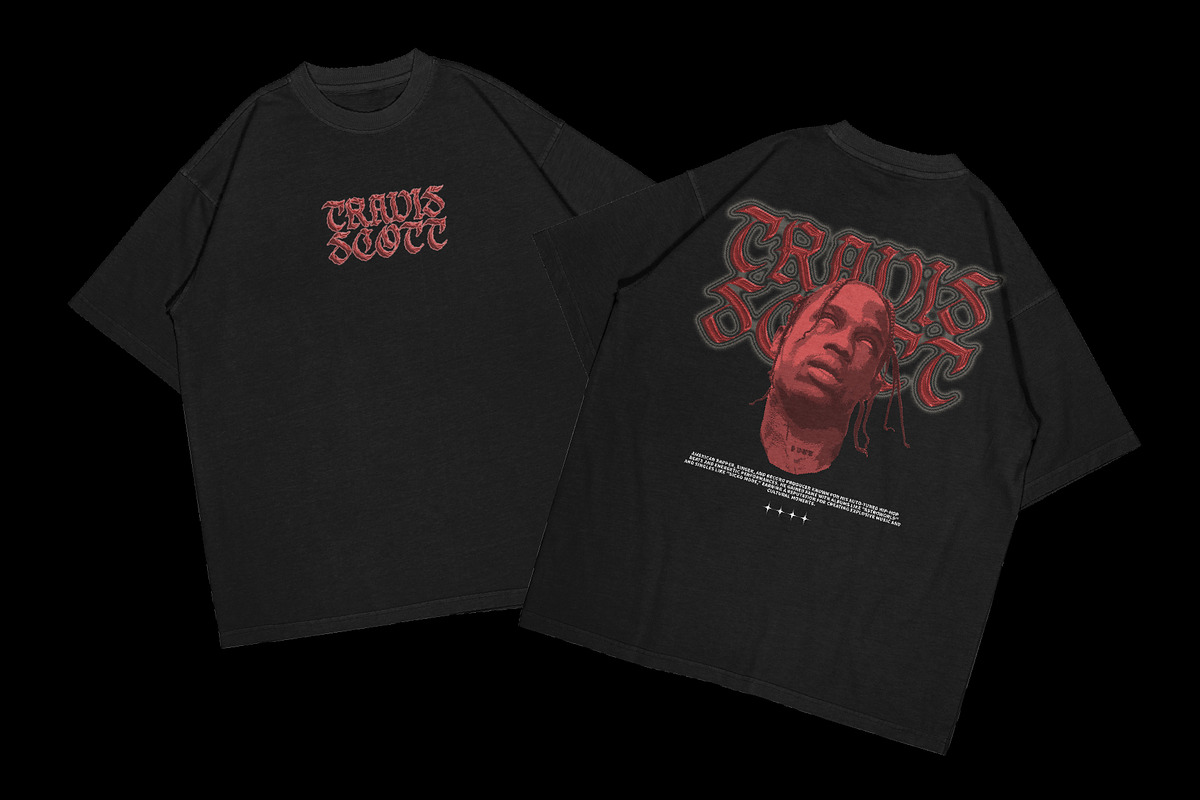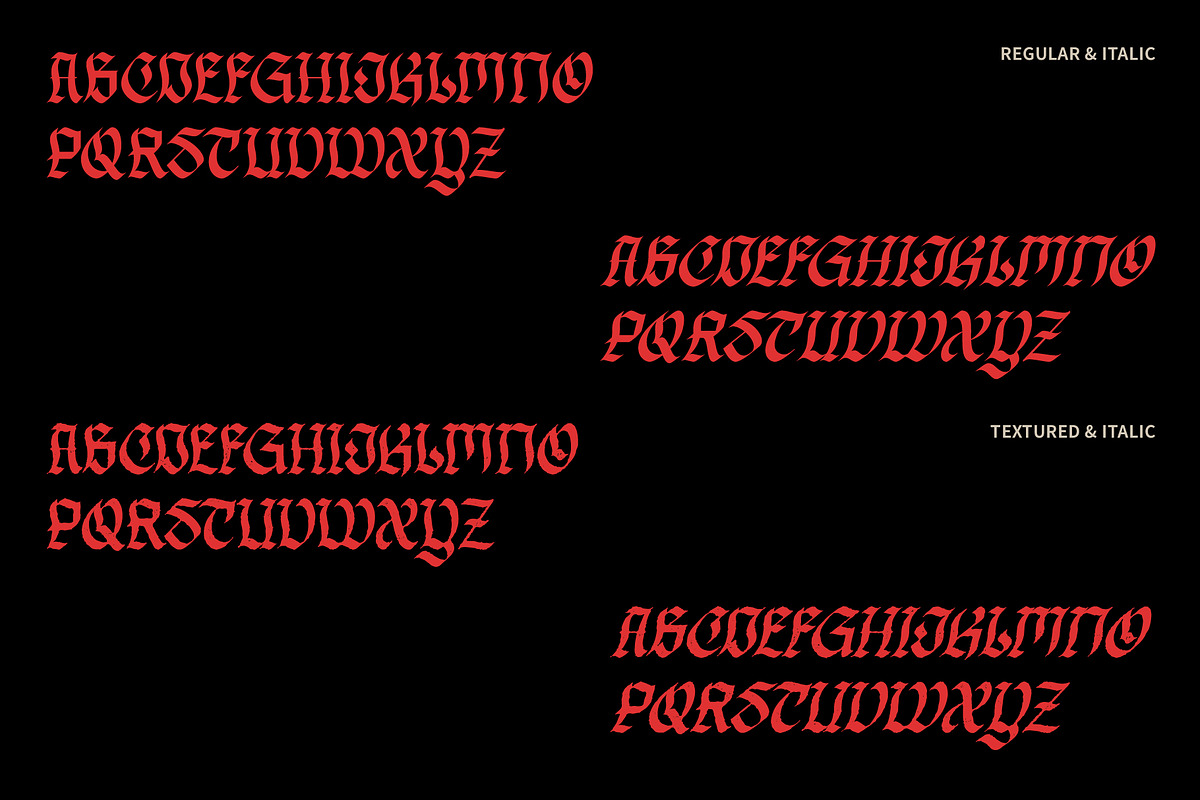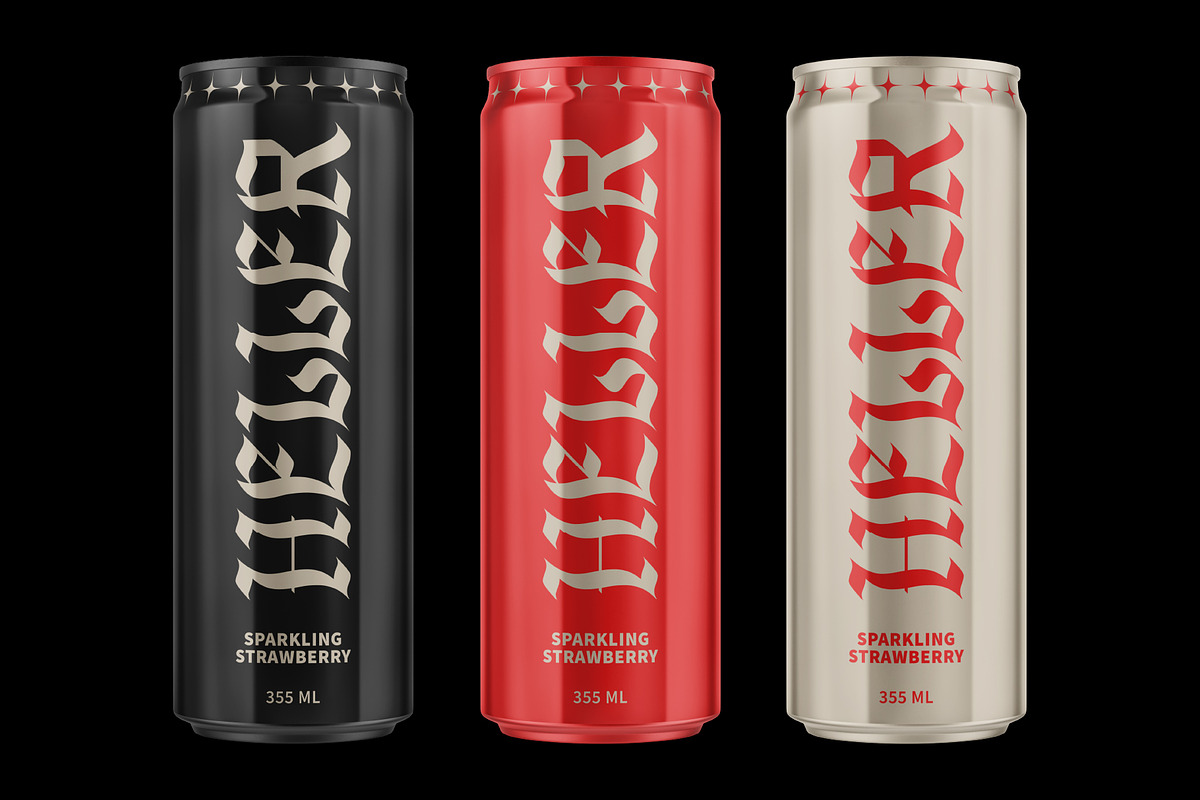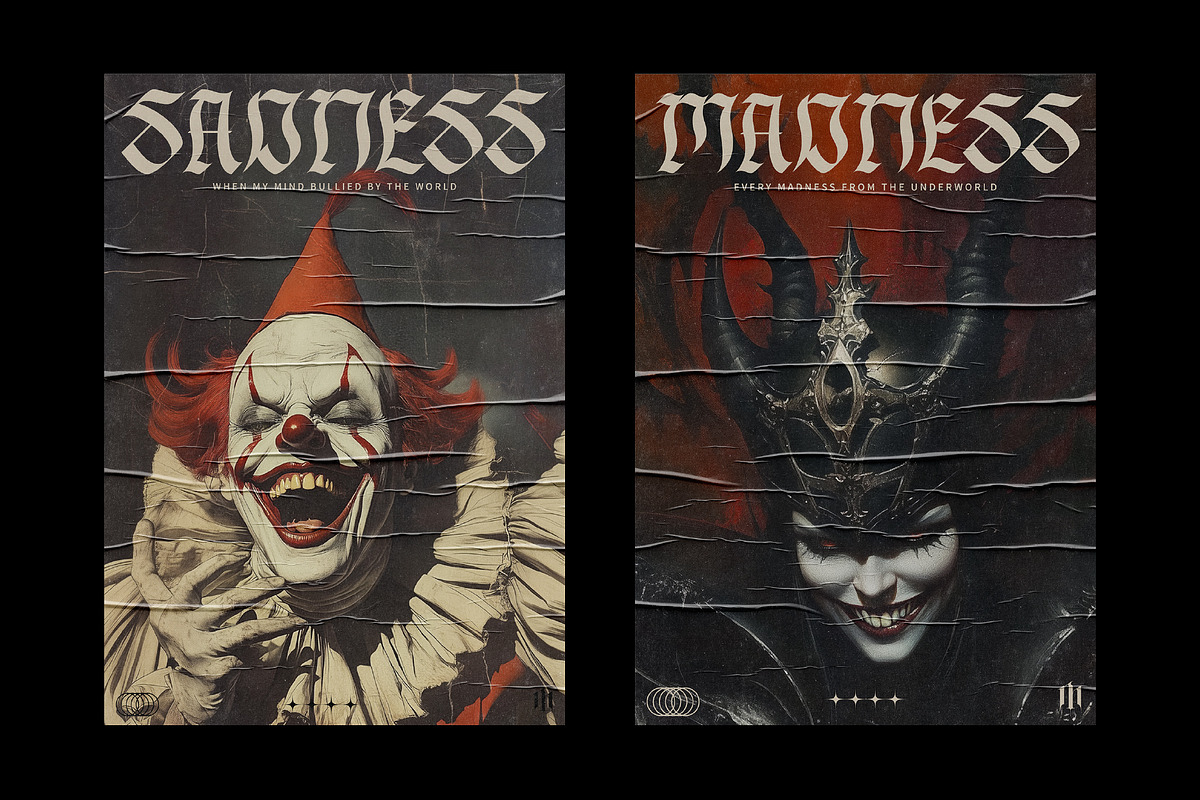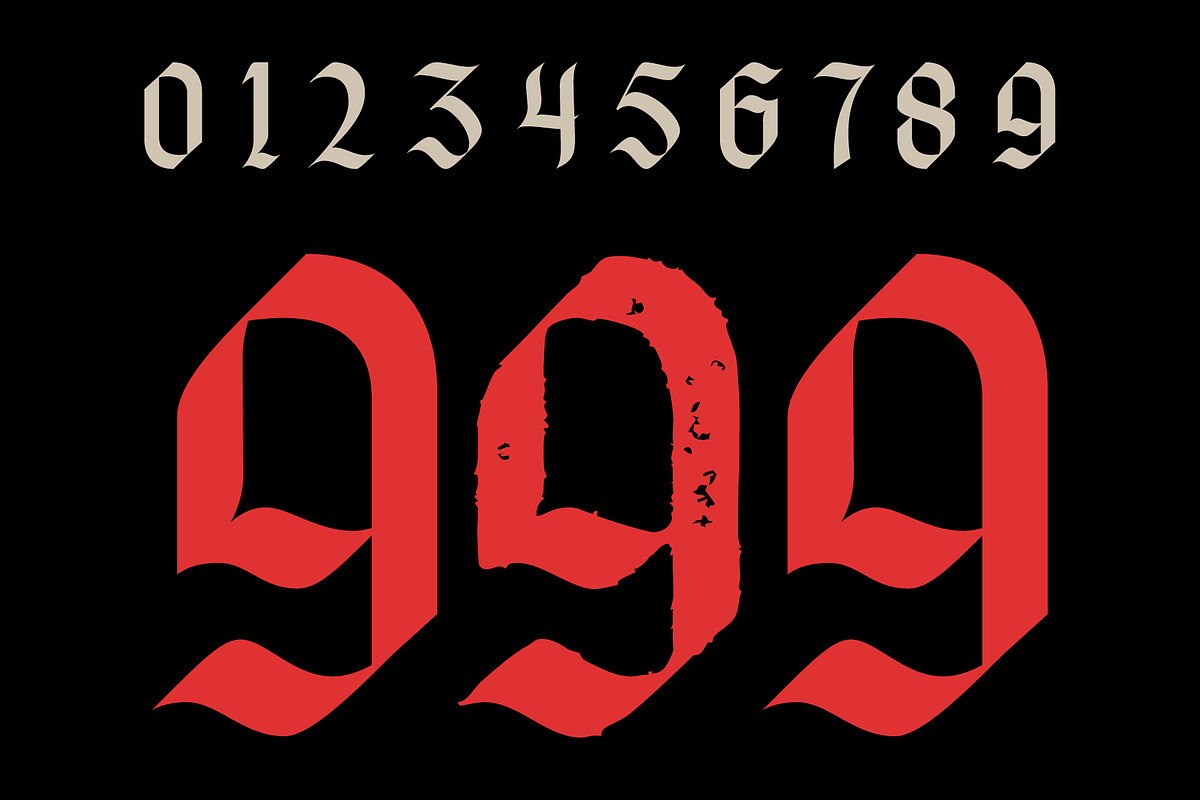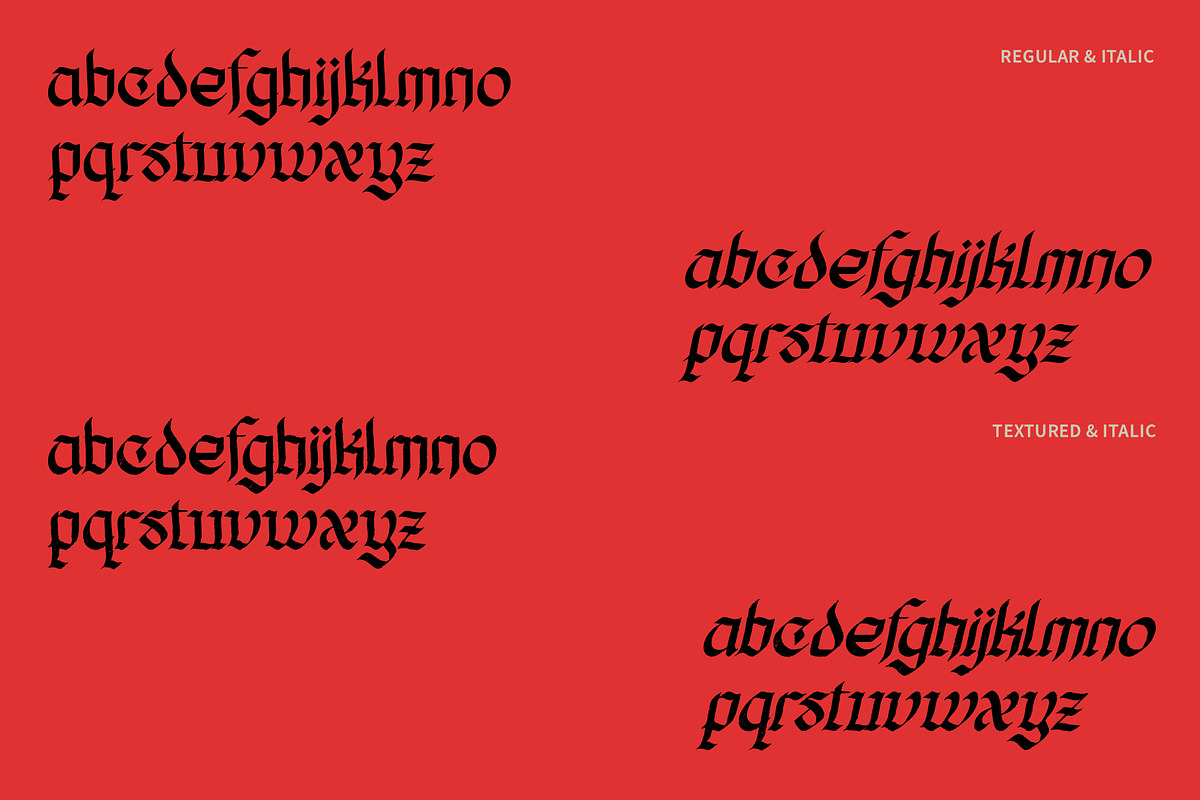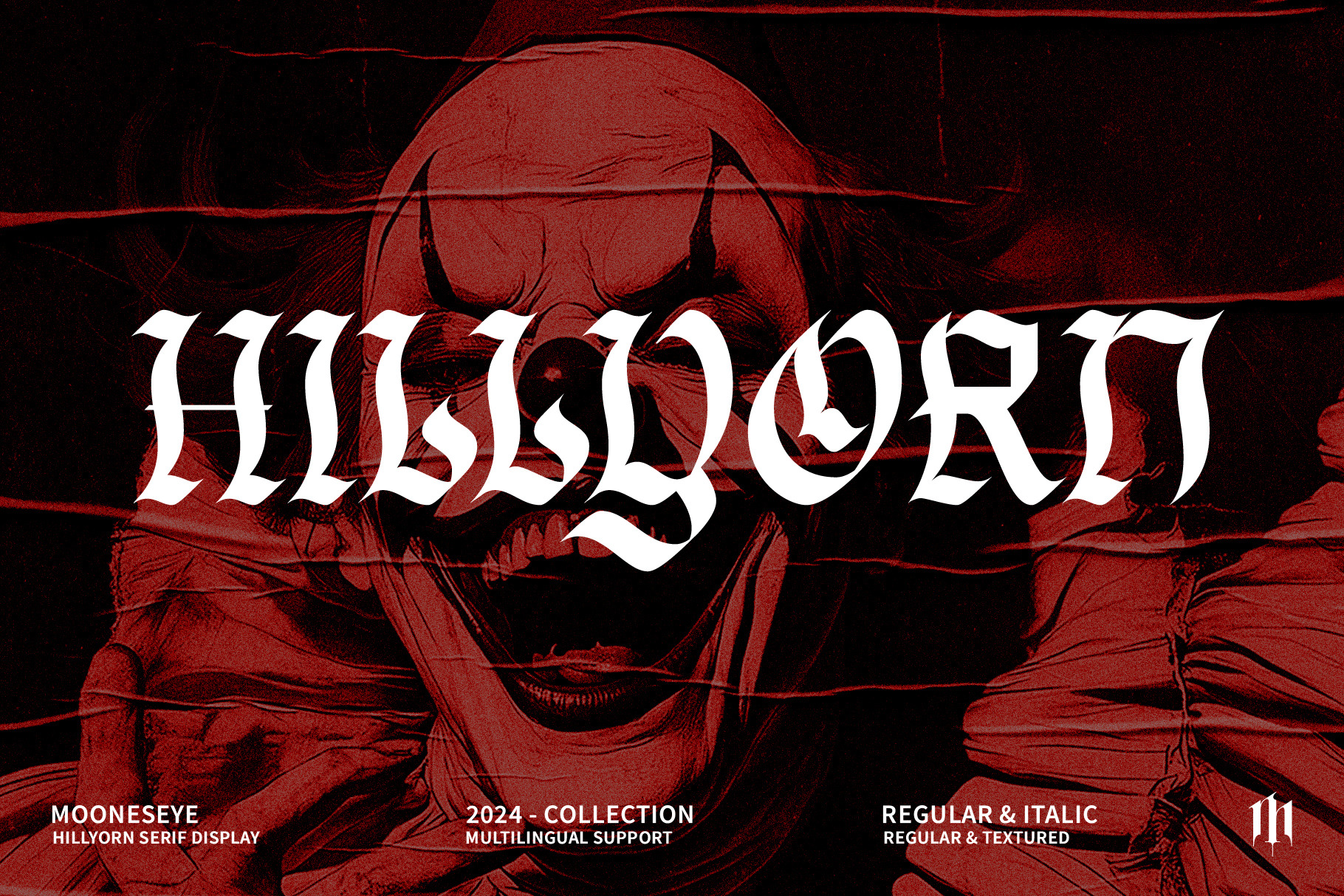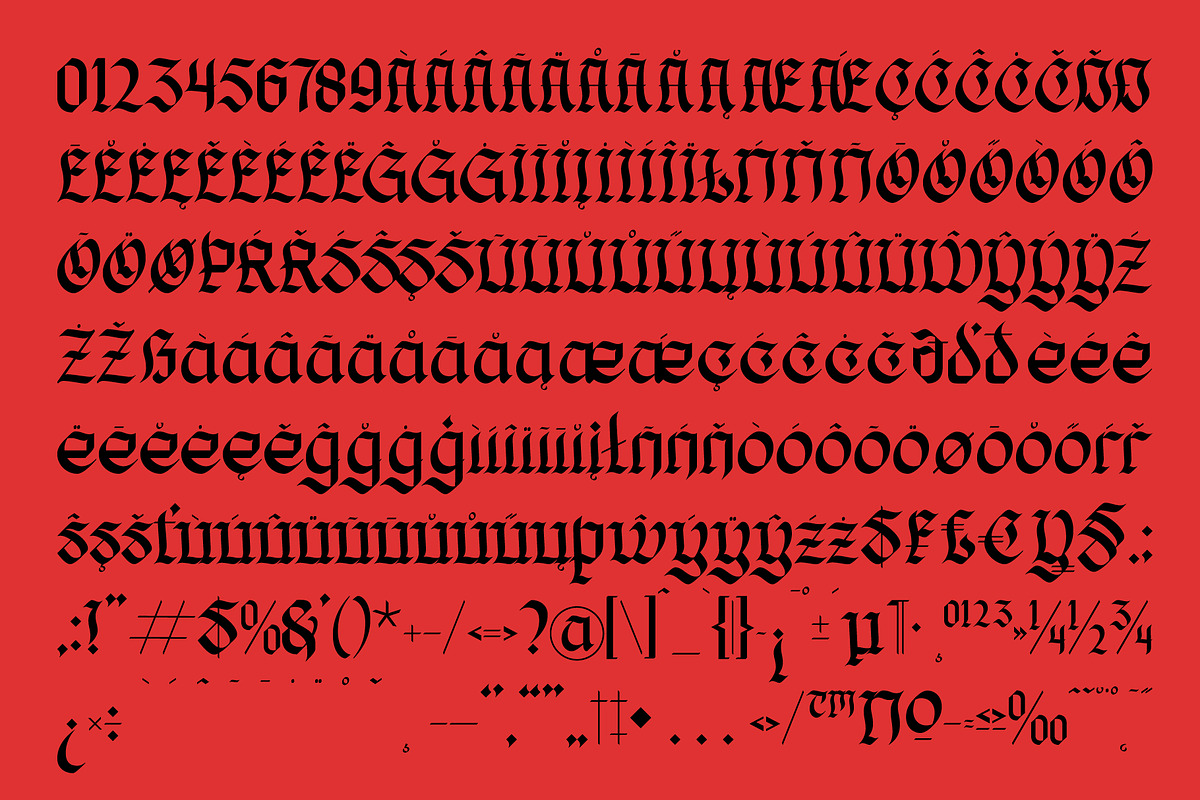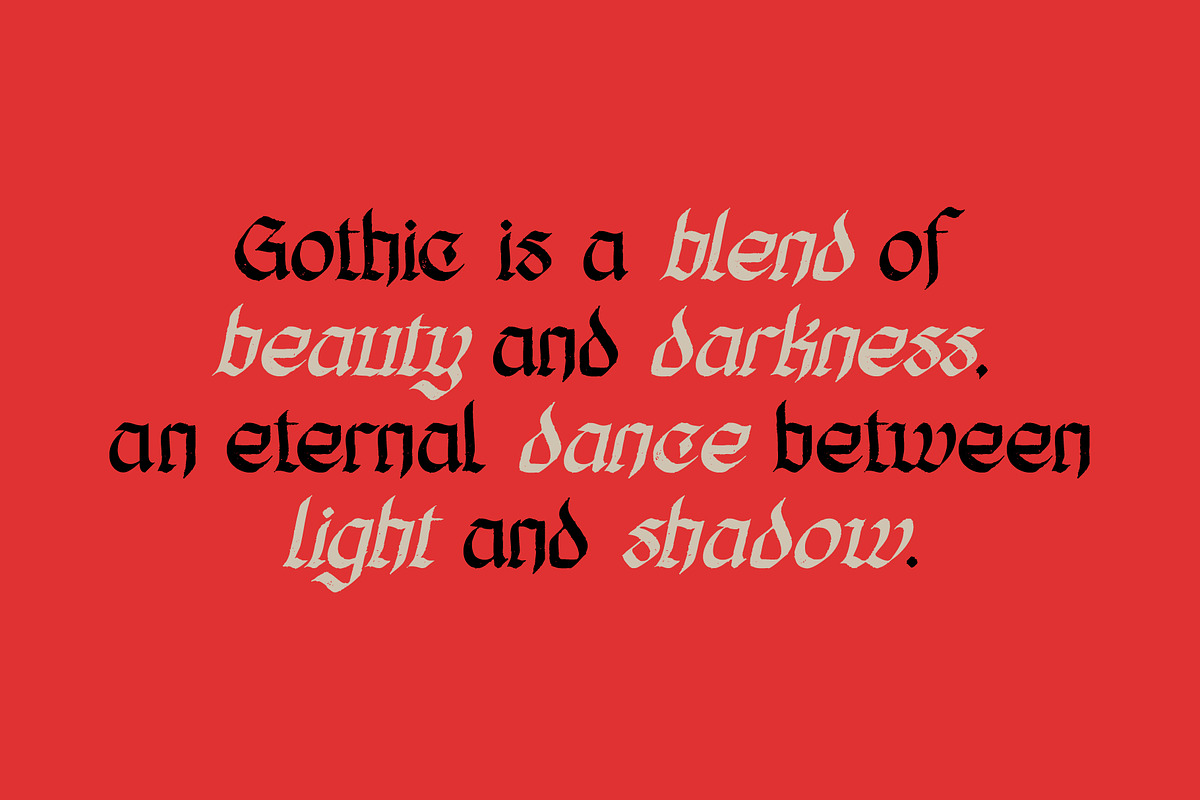
Hillyorn – Modern Blackletter Font
Introducing Hillyorn, a striking modern blackletter font that fuses rebellious energy with bold elegance. This typeface is made for designs that demand presence, character, and an unapologetic vibe. Whether you’re designing a tour poster, horror branding, edgy apparel, or bold packaging – Hillyorn steps in with a gothic soul and a contemporary twist.
Let your creativity roam free – from underground zines to metal band logos, this font tells a story even before the first word is read. With regular, italic, and textured styles, Hillyorn offers versatility while keeping that raw, handcrafted energy.
💀 Why You'll Love Hillyorn
- Strong and expressive blackletter form with modern attitude
- Comes in Regular, Italic, and Textured styles
- Perfect for music artwork, horror posters, streetwear branding, and editorial headlines
- Clean and textured versions give full creative freedom
- Multilingual support for global reach
- Carefully crafted with unique character shapes to enhance visual impact
- Great readability even in decorative contexts
🖤 Visual Use Ideas:
- Metal or punk band t-shirts
- Bold beverage labels or can designs
- Dark fantasy or horror book covers
- Cinematic film posters
- Tattoo-inspired logo work
- Limited edition album art